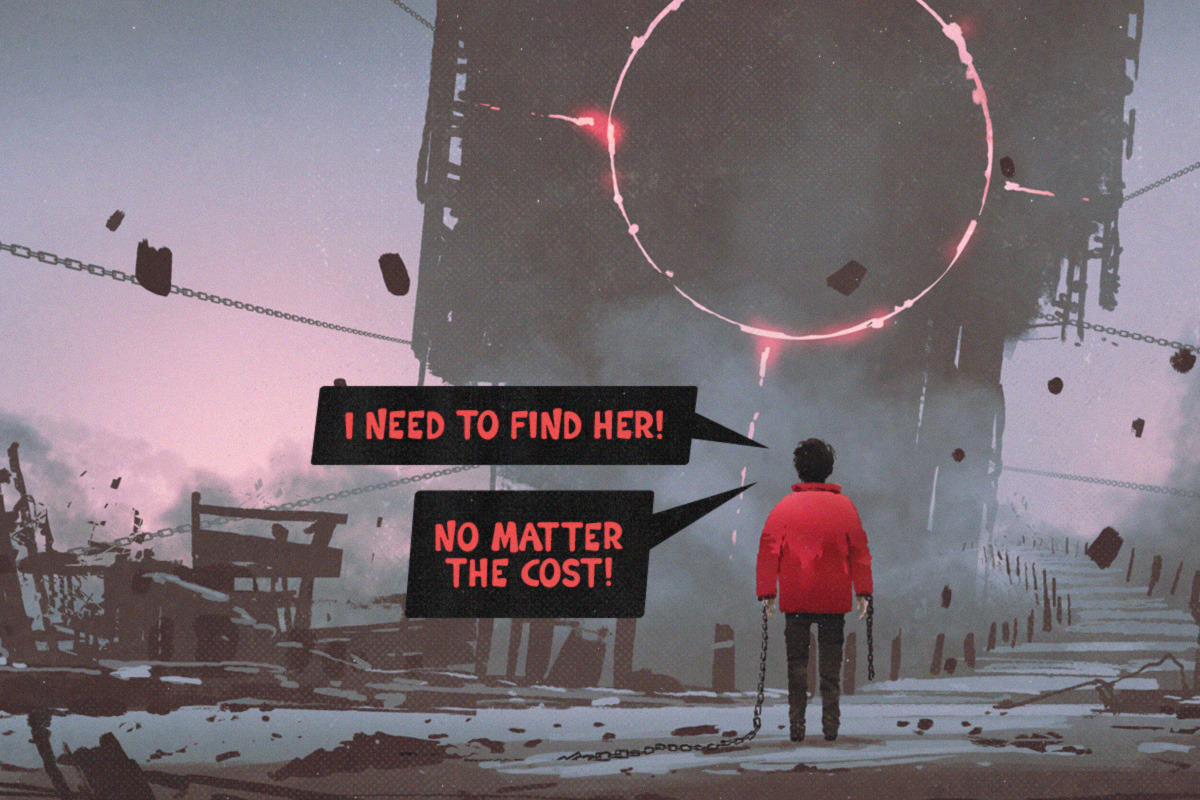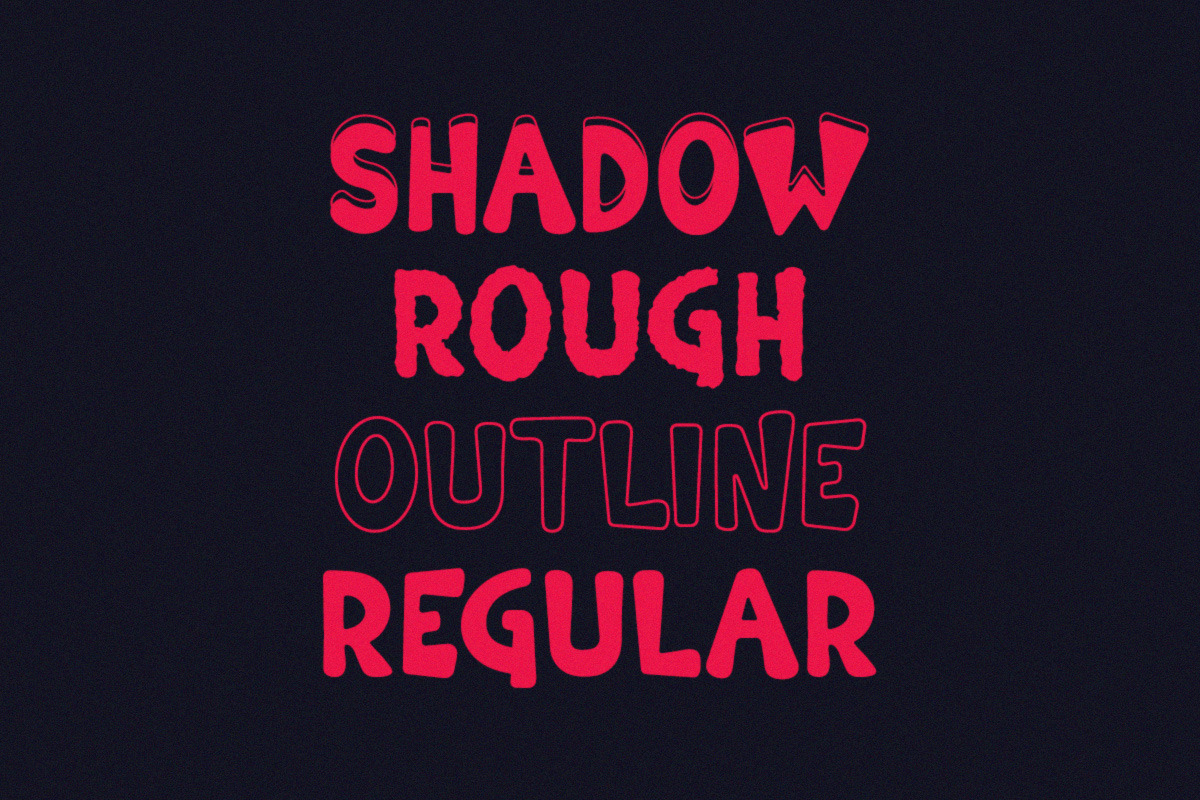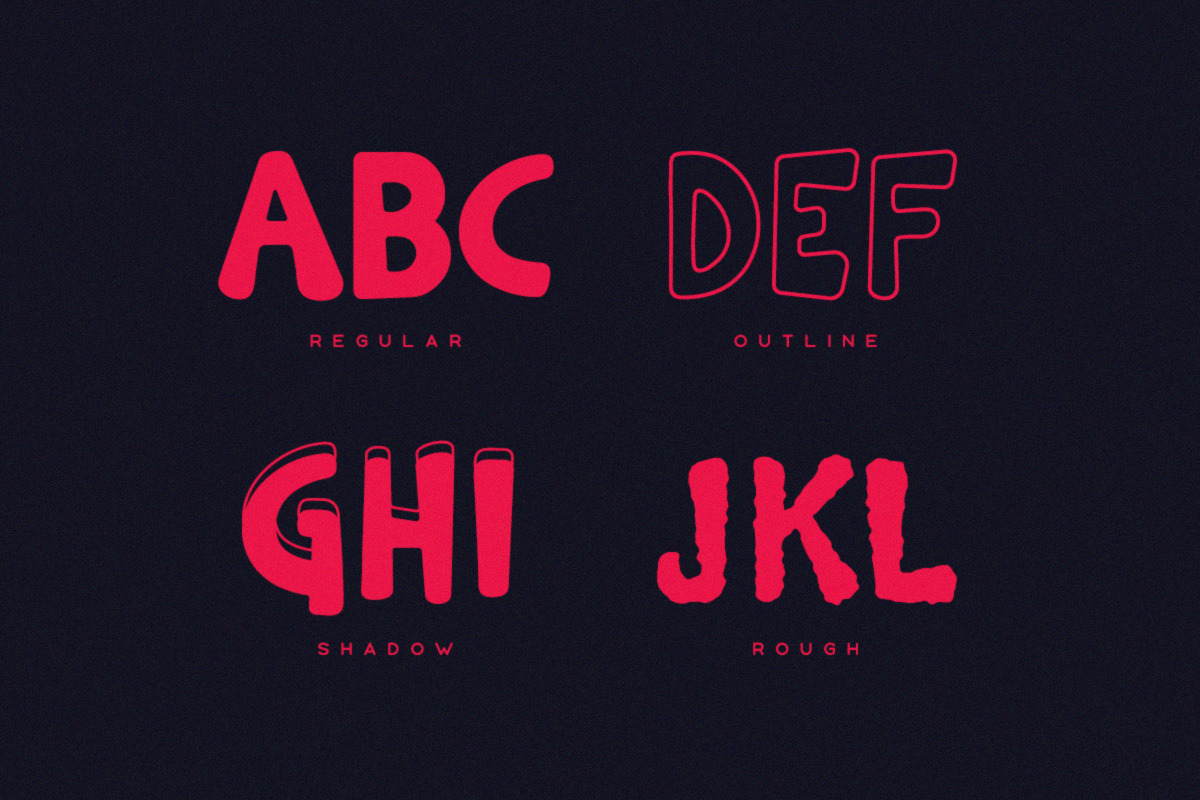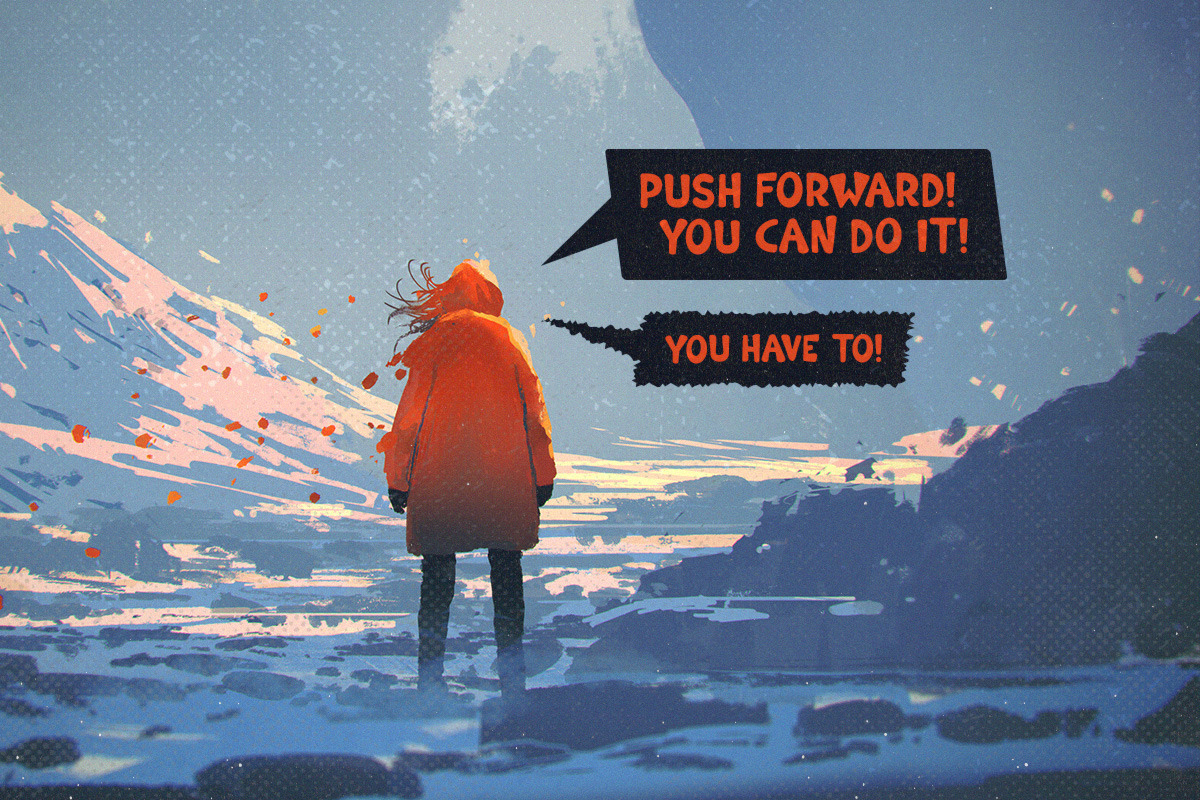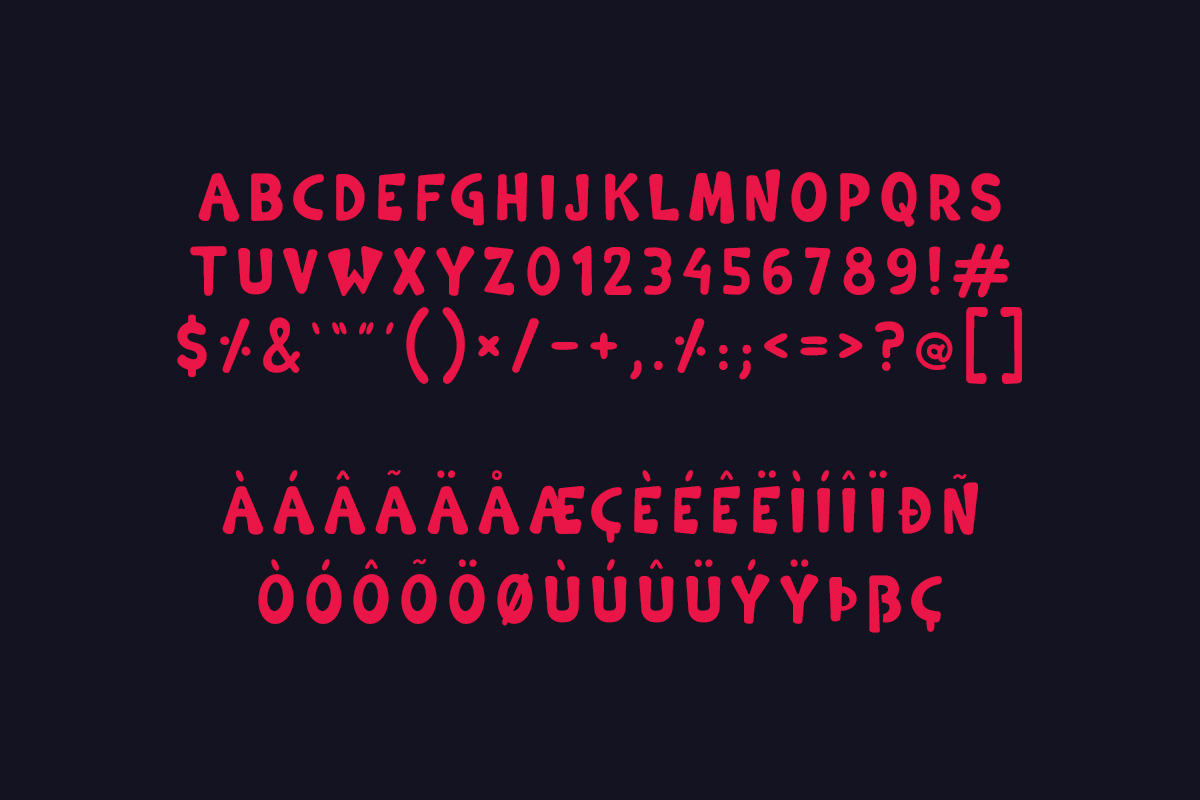
Warden Typeface
Warden is a bold, rounded irregular typeface with 4 distinct style options. It includes uppercase multilingual letters, numbers and punctuation.
- It includes uppercase multilingual letters, numbers and punctuation.
- Warden Regular
- Warden Outline
- Warden Rough
- Warden Shadow
Why Warden Typeface is worth a look
Warden Typeface by Tugcu Design Co. fits naturally into Branding, posters, packaging, typography.